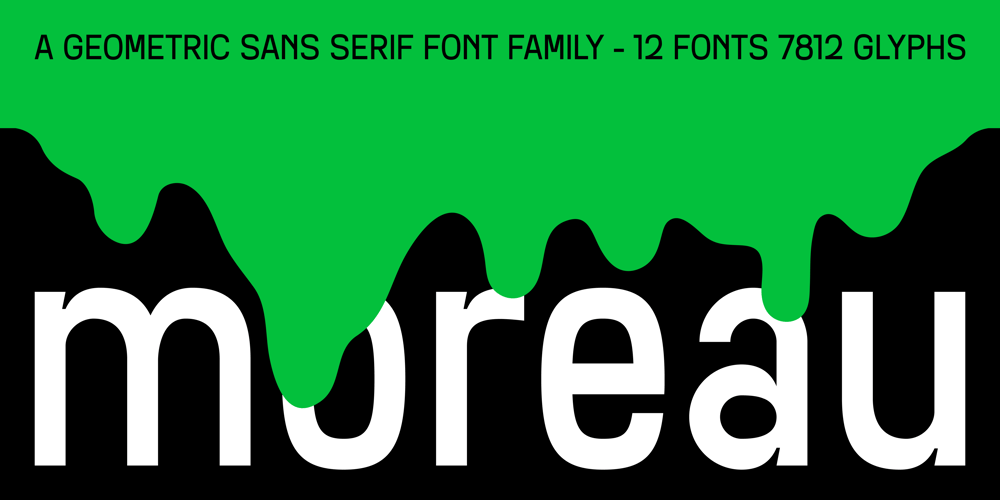
SK Moreau Font Family was designed by Salih Kizilkaya and published by Salih Kizilkaya. SK Moreau contains 12 styles and family package options. SK Moreau is a sans serif font named after the famous science fiction novel “The Island of Doctor Moreau” written by H. G. Wells. This font family includes a total of 12 fonts and 7812 glyphs. In this way, it contains all the typographic elements you will need in your designs.